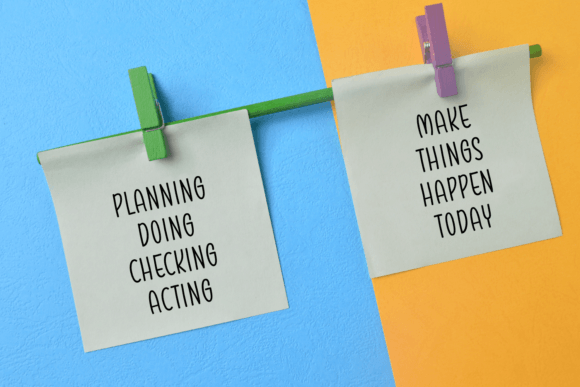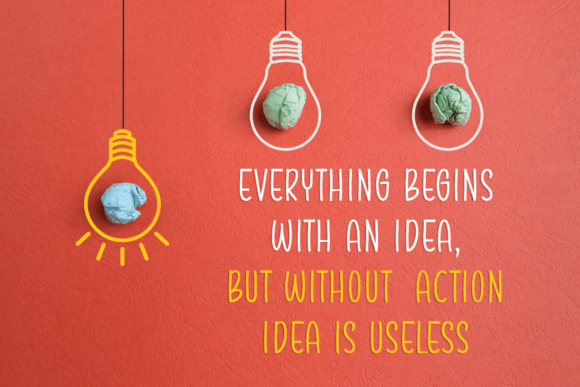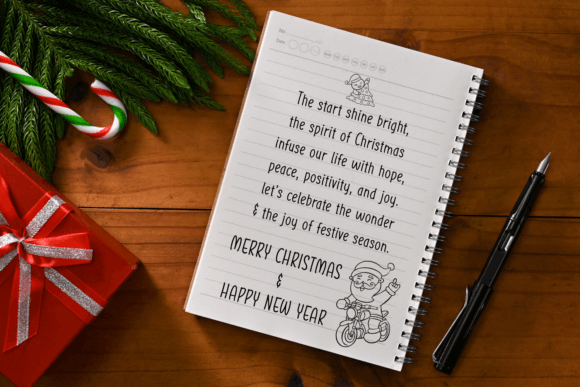
Introduction to Josephine Handmade Font
There’s something magical about scribbling down ideas in a notebook with a favorite pen. The feel of the paper beneath, the sound of the nib gliding across the page, and the joy of watching your thoughts take shape. It’s moments like these that inspire designers to seek out the perfect font to capture the essence of their creative project.
For those who crave a touch of elegance and personality in their designs, the Josephine Handmade Font is a treasure trove of possibilities. This charming handwritten font is designed to bring a sense of warmth and approachability to any project, from websites and posters to book covers and business cards. With its clean and neat characters, it’s the perfect design resource for anyone looking to add a high-quality, free download to their creative toolkit.
Whether you’re a seasoned designer or just starting out, the Josephine Handmade Font is a valuable addition to your design arsenal. Its PUA encoding makes it easy to access all the glyphs and swashes, giving you the freedom to experiment and push the boundaries of your creativity. And with its transparent background, it’s perfect for designers who want to add a touch of whimsy to their digital projects.
Key Features of Josephine Handmade Font
- Unique, hand-drawn design ideal for creative projects and artistic expressions.
- High-quality font with transparent background, perfect for use on various design resources.
- Features a large character set, including uppercase and lowercase letters, numbers, and special characters.
- Designed to be highly legible, with clear and detailed letterforms suitable for use in a variety of contexts.
Honest Review: Josephine Handmade Font
I recently had the chance to work with the Josephine Handmade Font, and I must say, it’s a beautiful addition to any design project. As a designer, I’m always on the lookout for high-quality fonts that can elevate my creative work.
Here’s what I like about the Josephine Handmade Font: ✨ It’s incredibly versatile and can be used for a variety of design projects, from wedding invitations to brand logos. The font is also very easy to read, making it perfect for body text.
Some of the key features that I appreciate about the Josephine Handmade Font include:
- High-quality design that’s perfect for print or digital use
- Transparent background, making it easy to work with in design software
- Great for creative projects that require a touch of elegance and sophistication
However, I do have a few minor complaints: ⚠️ The font doesn’t come with a complete character set, which can be a limitation for some designers. Additionally, the font may not be suitable for all types of design projects, particularly those that require a more modern or edgy look.
Overall, I’m impressed with the Josephine Handmade Font and would recommend it to designers looking for a high-quality, elegant font for their creative projects. With a little bit of creativity, the limitations of this font can be overcome, and it can be used to create truly stunning designs.